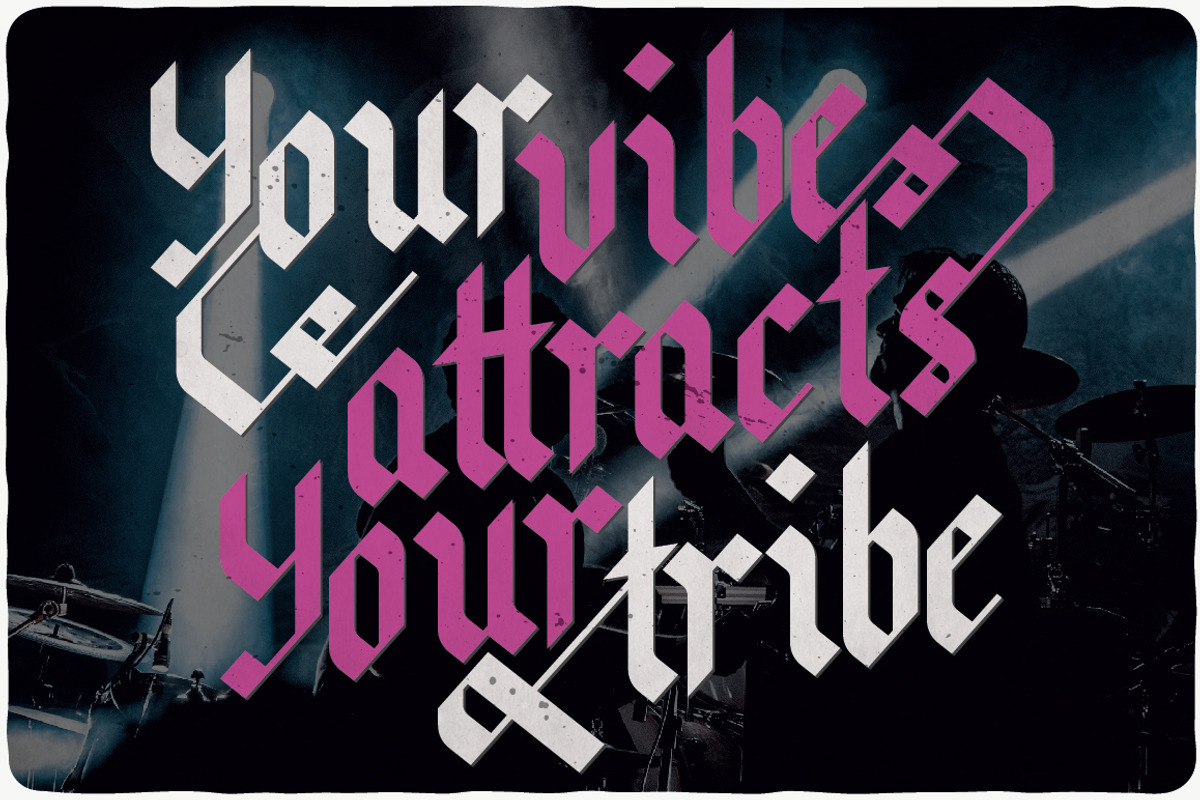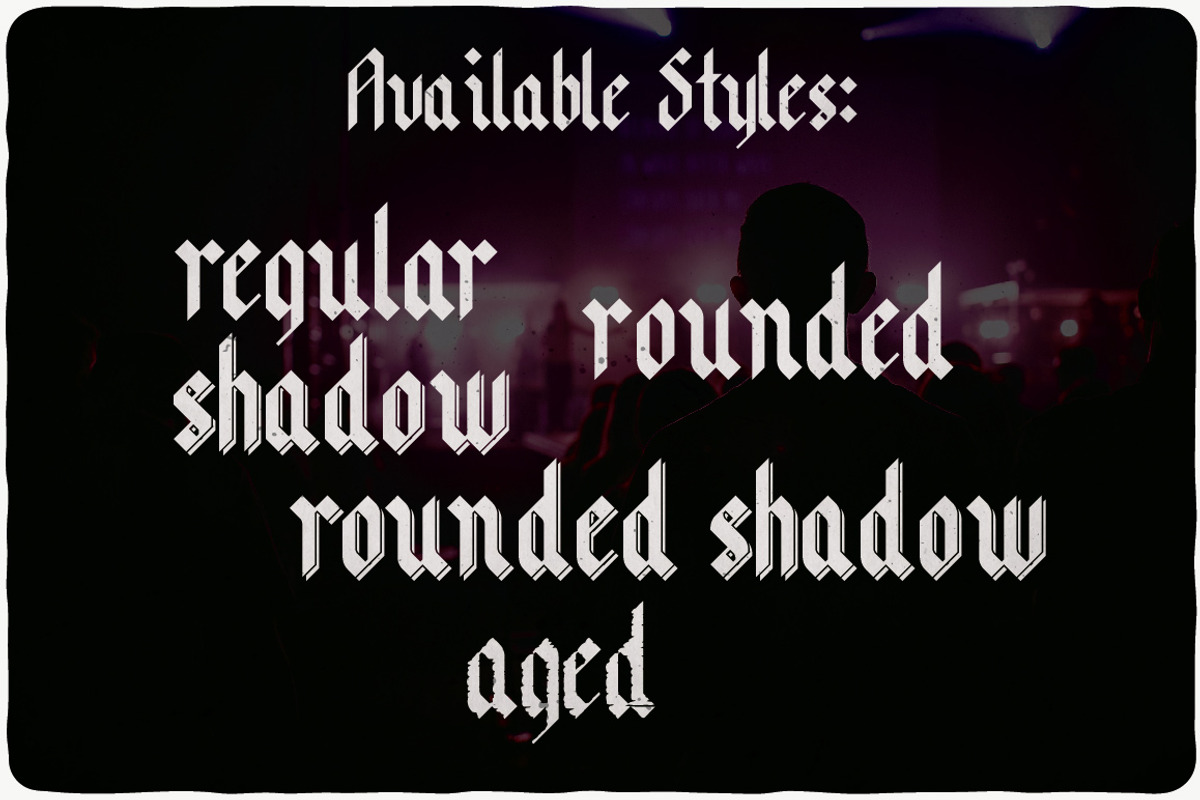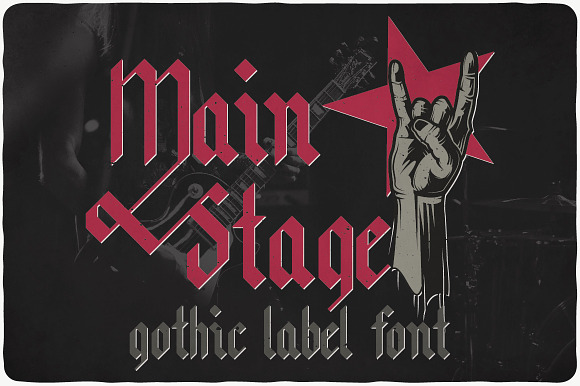
Main Stage typeface
Introducing a gothic and vintage look label typeface named "Main Stage". This typeface contents caps and small letters, numbers and several punctuation signs. Typeface will good viewed on any yours design.
- This typeface contents caps and small letters, numbers and several punctuation signs.
- Main Stage Regular
- Main Stage Aged
- Main Stage Rounded
- Main Stage Rounded Shadow
- Main Stage Shadow
Main Stage typeface by VozzyStock fits naturally into Branding, posters, packaging, typography.